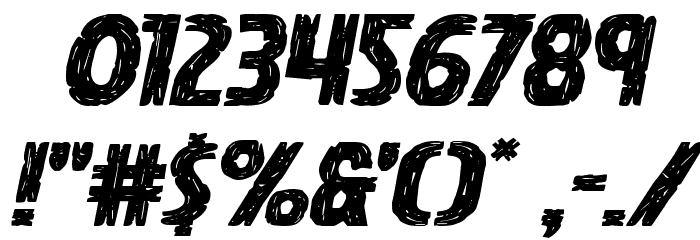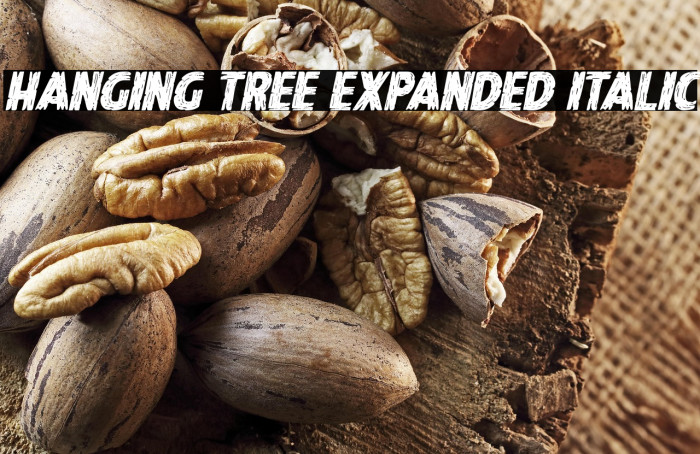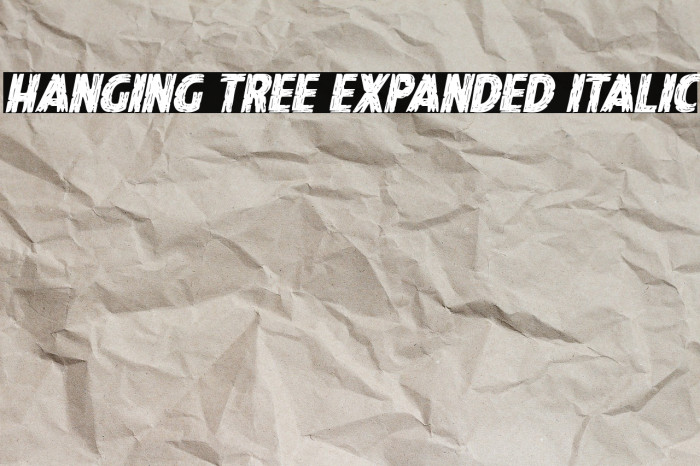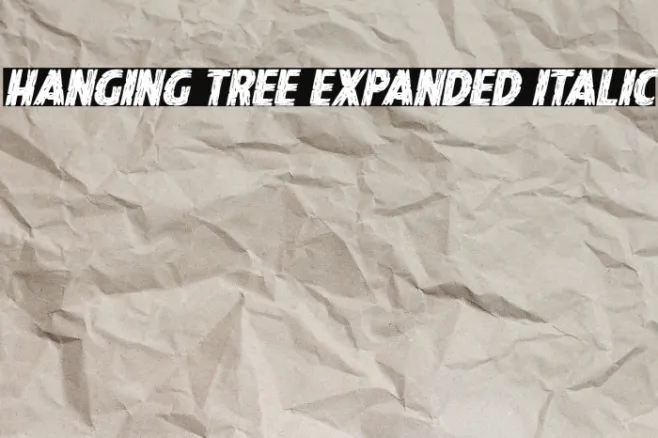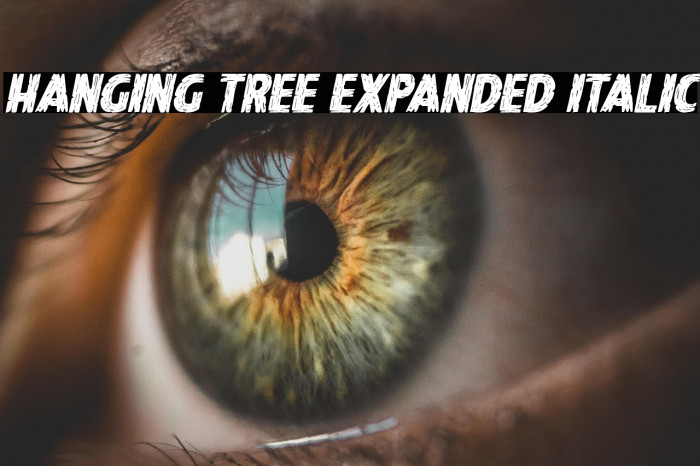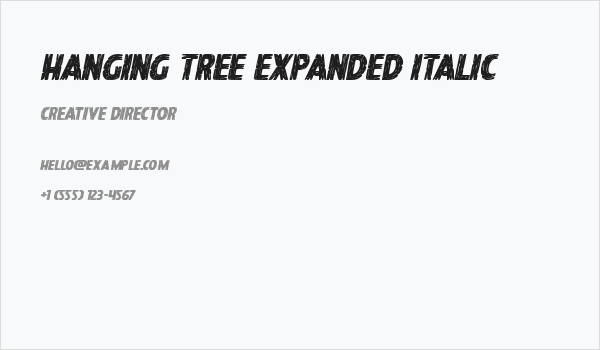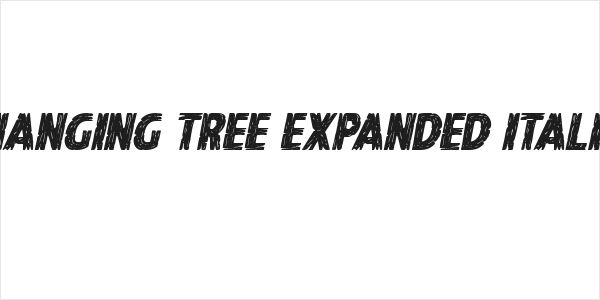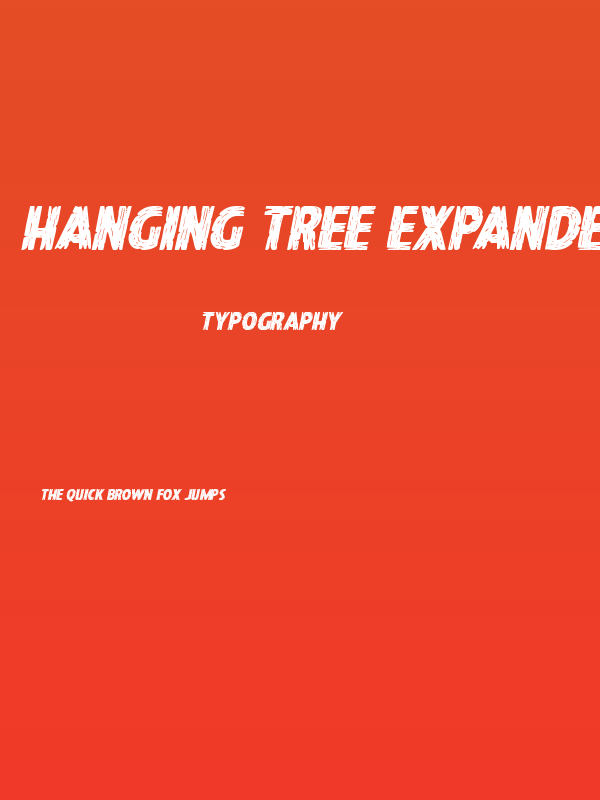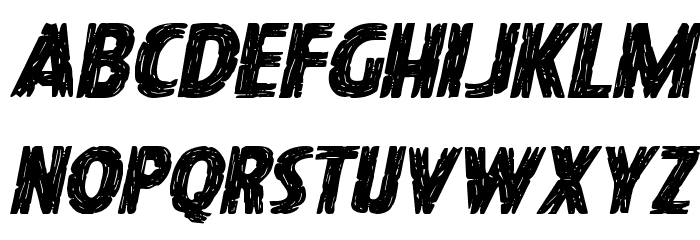
Hanging Tree Expanded Italic Font
Hanging Tree Expanded Italic Description
This font features a bold, energetic style with a hand-drawn appearance, characterized by its rough, sketch-like texture. The letters are italicized, adding a dynamic slant that enhances its expressive nature. The expanded width gives it a strong presence, making it ideal for attention-grabbing designs. The strokes are uneven, contributing to a high-contrast look that emphasizes its decorative qualities. This font is perfect for projects that require a bold, artistic touch, such as posters, album covers, or branding materials that aim to convey creativity and uniqueness.
| Proposed Projects | Ideal for posters, album covers, branding materials, and creative design projects. |